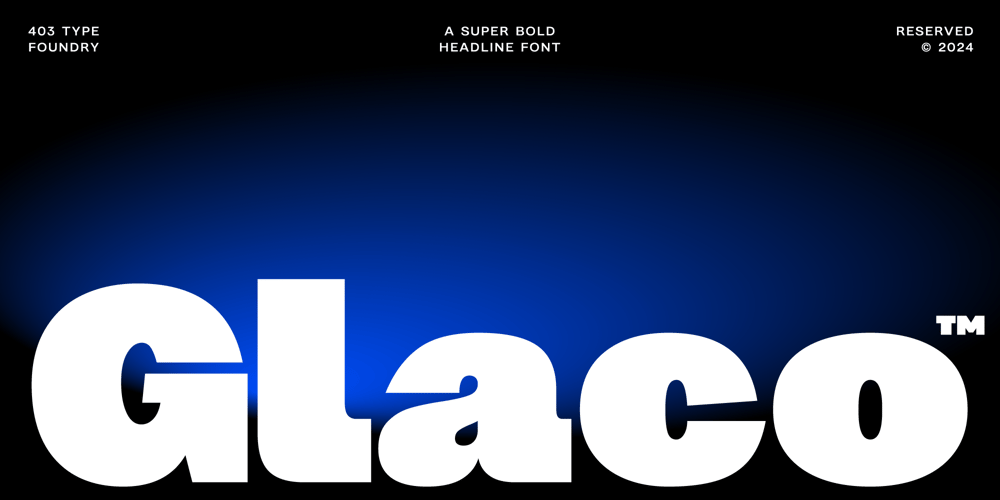
403 Glaco Font Family was designed by Umar Al Farouq, Jodi El Ghazi, Febri Riansah and published by 403TF. 403 Glaco contains 2 styles and family package options. 403 Glaco is a powerful, geometric sans-serif typeface that commands attention with its bold, blocky design. Available in one weight with two styles—regular and slanted—it offers versatility while maintaining its strong visual impact. With support for 285 languages and 664 glyphs per style, this font is well-suited for global applications, ensuring broad accessibility and usability. Its robust structure makes it ideal for headlines, logos, and branding, where clarity and impact are paramount. The slanted style adds a dynamic touch, providing options for emphasis and variety within the same cohesive type family.